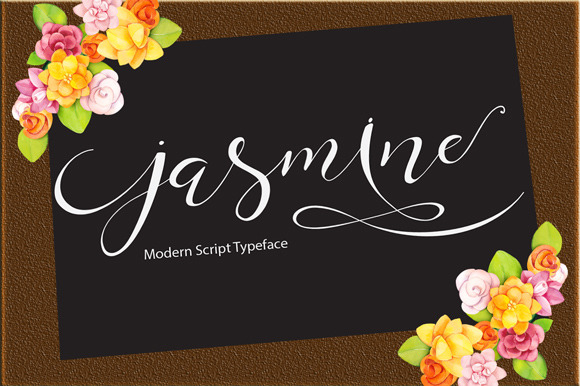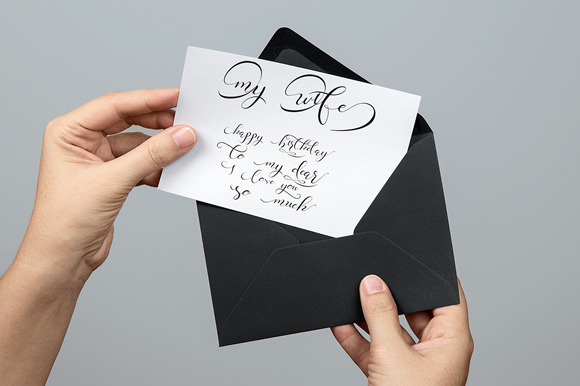
Jasmine
Jasmine Script Font
Is a hand calligraphy, smooth, modern and clasik, calligraphy wavy, which was created to meet the needs of your next design project. Jasmine, Can used for various purposes. such as the title, signature, logo, correspondence, wedding invitations, letterhead, signage, labels, newsletters, posters, badges, etc.